1992 saw the launch of another new X-Men team spinoff, X-FORCE, with mostly new characters created by Rob Liefeld, a more militaristic group led by Cable. The logo for this book was created by Alex Jay. Here are his sketches.
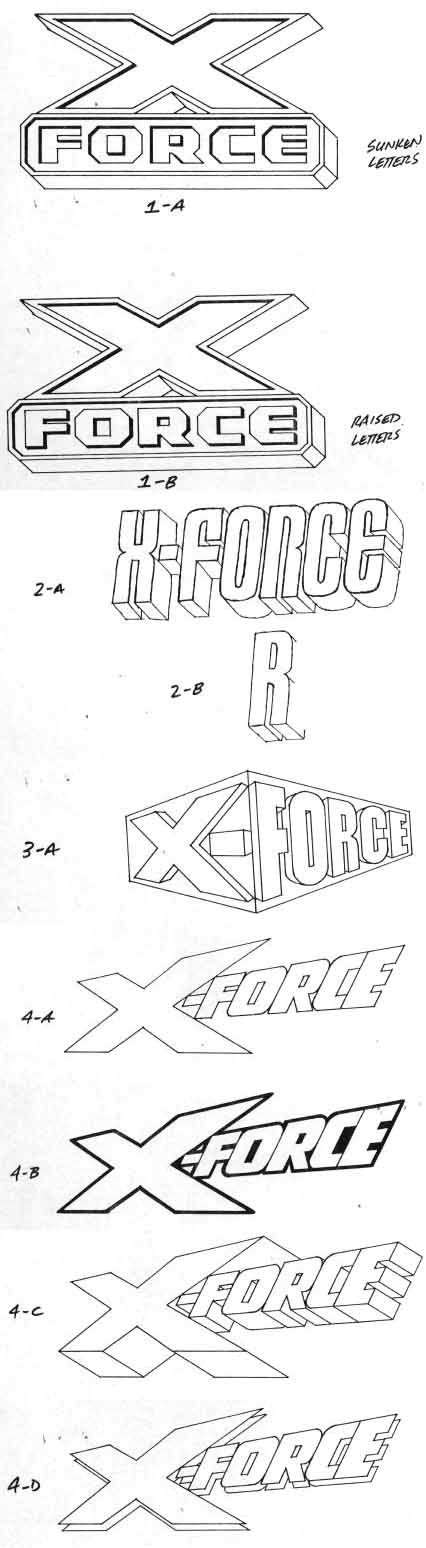
And here are some of his notes on them.
Bob Harras called and briefed me on a new title, X-Force. Work on the logo began in mid-October 1990. Tight renderings of designs 1-A and 1-B were completed on November 18. There were talks with Bob on the 21st and the 26th; the project was put on hold.
During the first week of April 1991, I began work on a new set of designs. Sketch 2-A didn’t break any new ground. The “X” in sketch 3-A would be extended even more in the next set of designs. I have to admit that this design was influenced by the logo of Foam-X, a manufacturer of foamboard. Sketches 4-A, 4-B, 4-C and 4-D were the basis of the eventual logo; 4-C was essentially the logo. Since Steranko’s X-Men logo had a vanishing point on the right, I designed the X-Force logo to vanish on the left. Even though the letterforms were plain, it was the perspective that made the difference. All of the designs were faxed to Bob on April 8. The next day I got the approval to finish the logo. On the 15th I delivered the art.
On June 18th Bob called and said he wanted me to redo the logo with a bolder outline. I completed the revision on the 24th, and faxed it to him on the 25th. A few days later I delivered the finished art.
The first version of the X-Force logo appeared on issue 1; the second, bolder version appeared on issues 2 through 43.
Here’s the bolder version, the first issue on which it appeared in full.
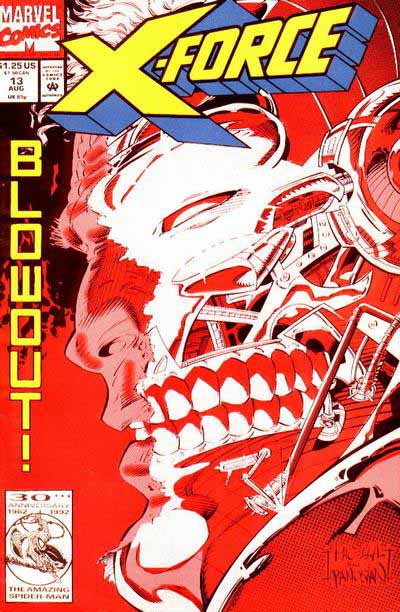
Looking at the sketches, they all use basic block-letter forms except version 2, which has an interesting variation on the letter R that I’ve never seen before. The giant X has now become a trend, and I think a logical one, helping to sell the franchise. I can’t think of another comic book franchise which can be identified with a single letter, once again pointing back to the inspired choice for the original team name. Of course, other companies tried to horn in with books emphasizing X in their name somehow, but none of them lasted long.
The final version, as seen on cover 1, does not have the classic appeal of the Steranko design to me, but it certainly does the job, with wide, forceful letters and telescoping. The revised version with thicker outlines works even better.
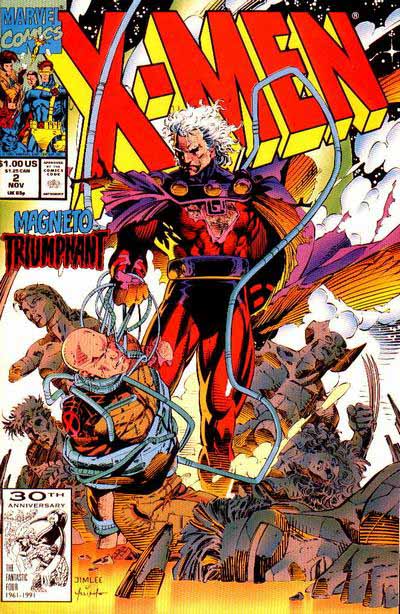
Also in 1991 a new non-adjectived X-MEN title began, using this vertically stretched version of the revised Steranko logo, also seen on some issues of UNCANNY X-MEN around the same time. You’d think they would have gone back to the Steranko logo instead, as it has a more pleasing design than this one, which LOOKS stretched. I found out why they didn’t do that a few years later when they asked me to do a new version of that Steranko logo because they didn’t have a good copy to use. At the time I didn’t know Steranko had designed it, and was simply told to trace it off one of the Neal Adams covers that I owned. Here’s my version:
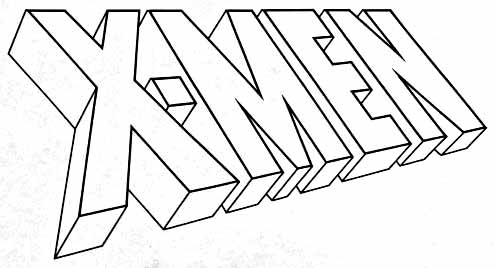
I believe this was done in 1994, and drawn by hand, just months before I got my first Macintosh desktop computer and began creating digital logos. I imagine someone at Marvel made a digital version of it soon after.
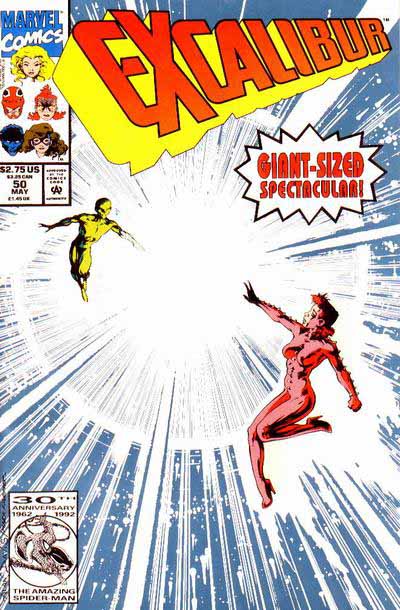
But I’m getting a bit ahead of myself chronologically. Next up is this 1992 redesign of the Excalibur logo by Alex Jay. This one brings the look into the same arena as the Steranko logo, though with a more modern rounded shape to the block letters, and an open drop shadow of the kind pioneered by Gaspar Saladino over at DC in the 1970s.
Of this one, Alex says it follows the design of Steranko’s X-Men logo as requested by the editors so no new ground was broken. I agree, but I still think it’s attractive.
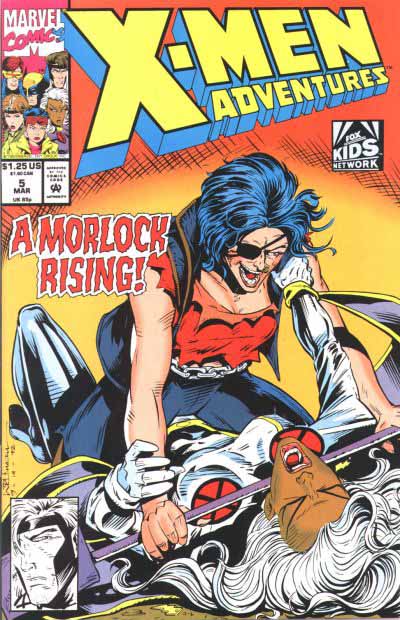
In 1992 I got my first X-Men logo assignment for this book, X-MEN ADVENTURES, based on the animated series that began airing that year. The logo associated with the show was the Steranko design, though in an airbrushed metallic version:
I offered three marker sketches to the editors…
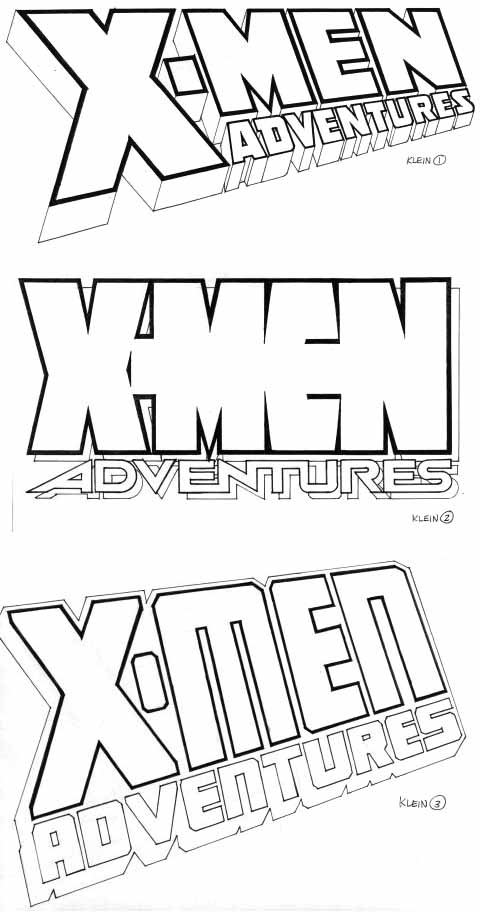
…and they picked the one closest to the Steranko version, which is what I expected, though I would have loved to see them use version 2, where I pushed the merging of the letters to an extreme. Probably too extreme, really, as it’s a bit hard to read.
The chosen logo still has much fatter letters on X-MEN than the Steranko inspiration, and follows the trend pushing the X to giant-size. The telescoping on ADVENTURES gets overly busy because of all the small facets needed, but when colored, it works okay.
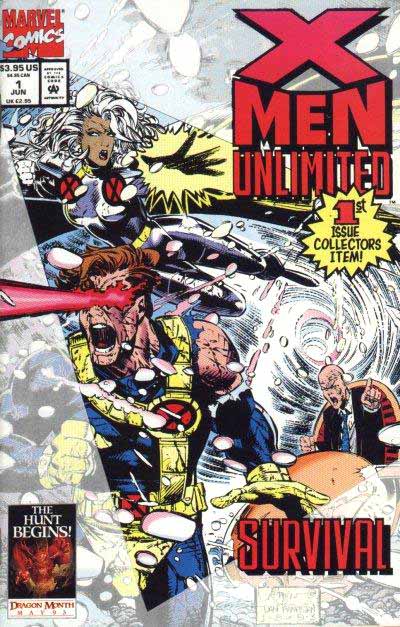
New X-titles continued to roll out with increasing frequency during these boom years for comics sales, with the next one being X-MEN UNLIMITED. I designed the logo for this book, which was originally going to be called:
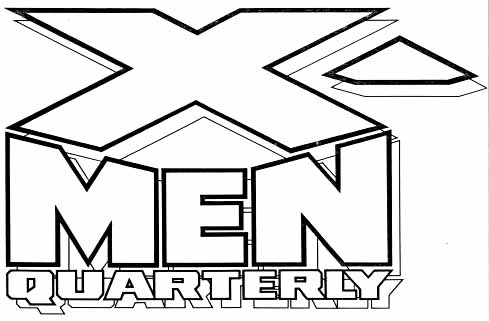
Notice the odd triangle to the right of the big X? The editorial staff wanted to have a hyphen to the right of the X, which I resisted, as I thought it was unnecessary, and threw off the symmetry of the design, so I created that piece to go into the appropriate hole below the X as a stand-in for the hyphen. I don’t think it was ever used, though, which is just as well.
Note that the cover art for the first issue of Unlimited, above, was obviously designed for a more traditionally-shaped logo. I’m not sure why they didn’t get the artist to do something that would work better with the logo they commissioned from me, but there you go. My essentially square design was always a tricky fit, but sometimes it was just the thing for a very character-filled cover, like this one: